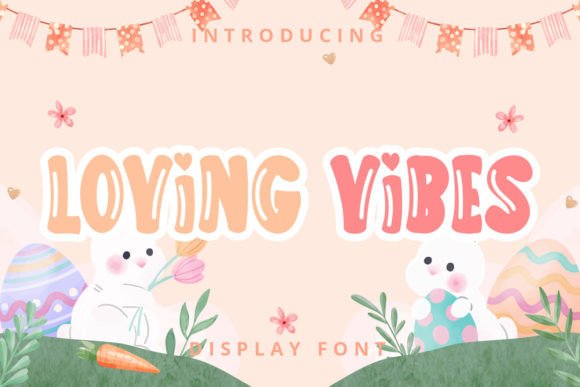
Introducing Loving Vibes, the font that radiates joy and captures the essence of summer! This bold, decorative, and quirky display font is sure to make your designs stand out with its friendly and summery vibe.
With Loving Vibes, you'll have a font that's incredibly versatile, transforming your creative visions into captivating realities. Its charming character adds a touch of playfulness and whimsy to any project.
Whether you're creating eye-catching logos, vibrant posters, or playful social media graphics, Loving Vibes is the perfect choice. It's the font that says "fun, flirty, and full of life!"
Unleash your imagination and let Loving Vibes take your designs to new heights. Its bold personality and quirky charm will add a touch of magic to any project. Download Loving Vibes today and experience the joy of creating with a font that truly captures the essence of fun and summer!
- Bold, decorative, and quirky display font
- Friendly and summery feel
- Incredibly versatile, fitting a wide range of contexts
- Perfect for logos, posters, social media graphics, and more
- Adds a touch of joy and playfulness to your designs
- Makes your designs stand out with its unique and charming character
- Helps you create captivating and memorable visuals
- Perfect for designers looking to add a touch of personality and fun to their projects